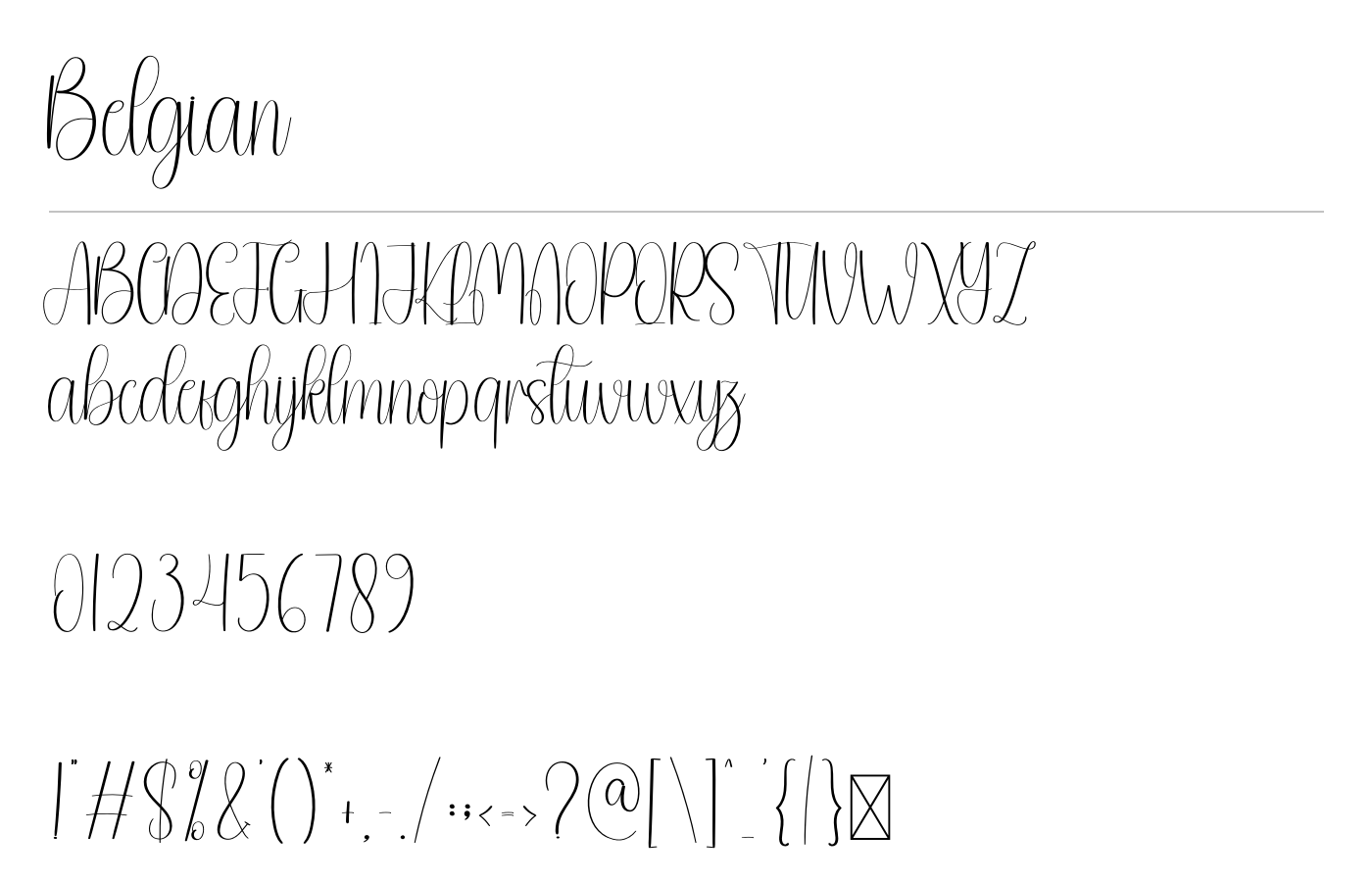
Belgian is a delicate, elegant script font characterized by its tall, narrow letterforms and fine, flowing lines. Its graceful, handwritten style conveys a sense of sophistication and femininity, making it ideal for wedding invitations, fashion branding, and other refined projects that require a touch of charm and subtle flair. The font’s slender strokes and airy spacing lend it an inviting, artistic personality perfect for decorative headlines or elegant accents.
Belgian Font